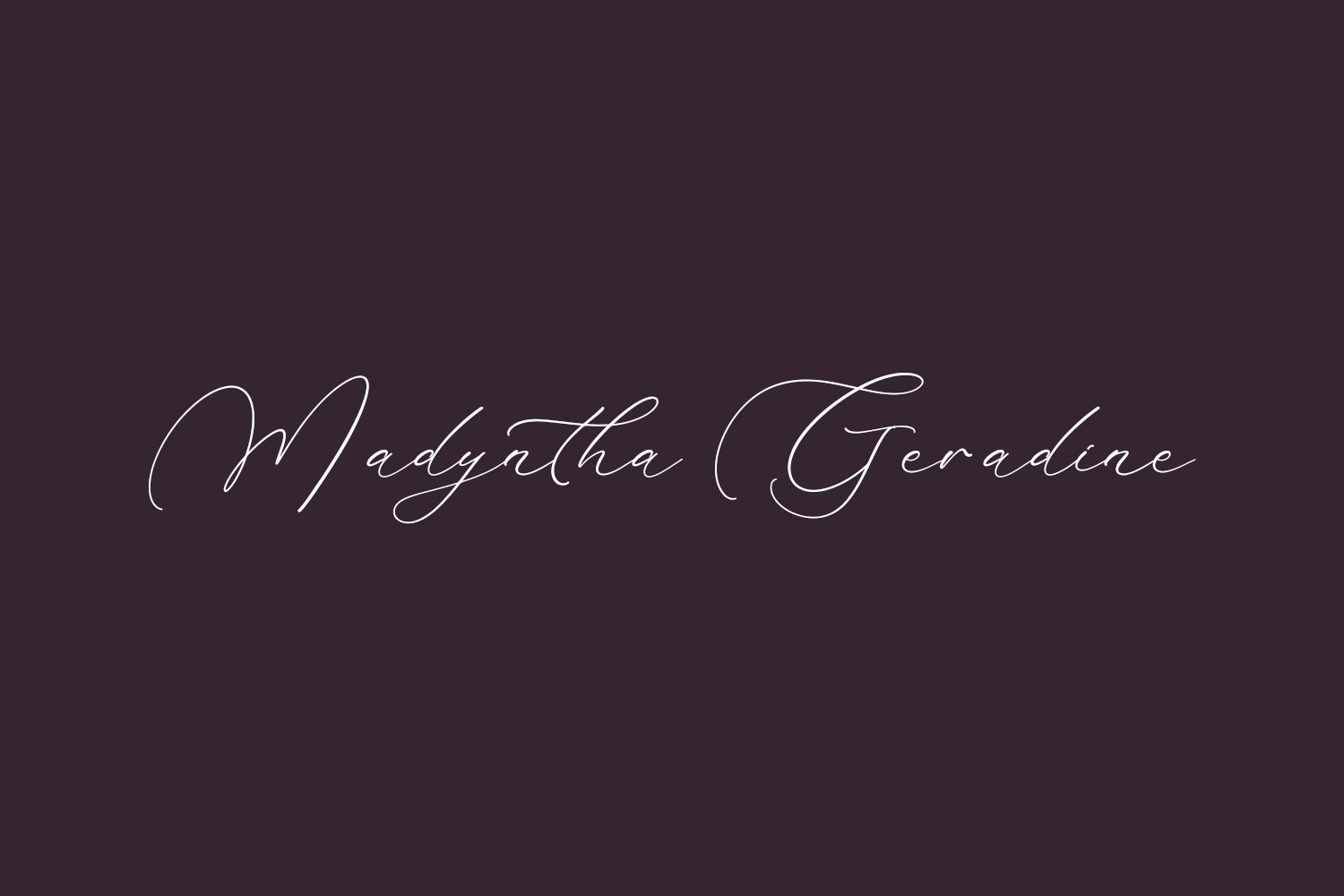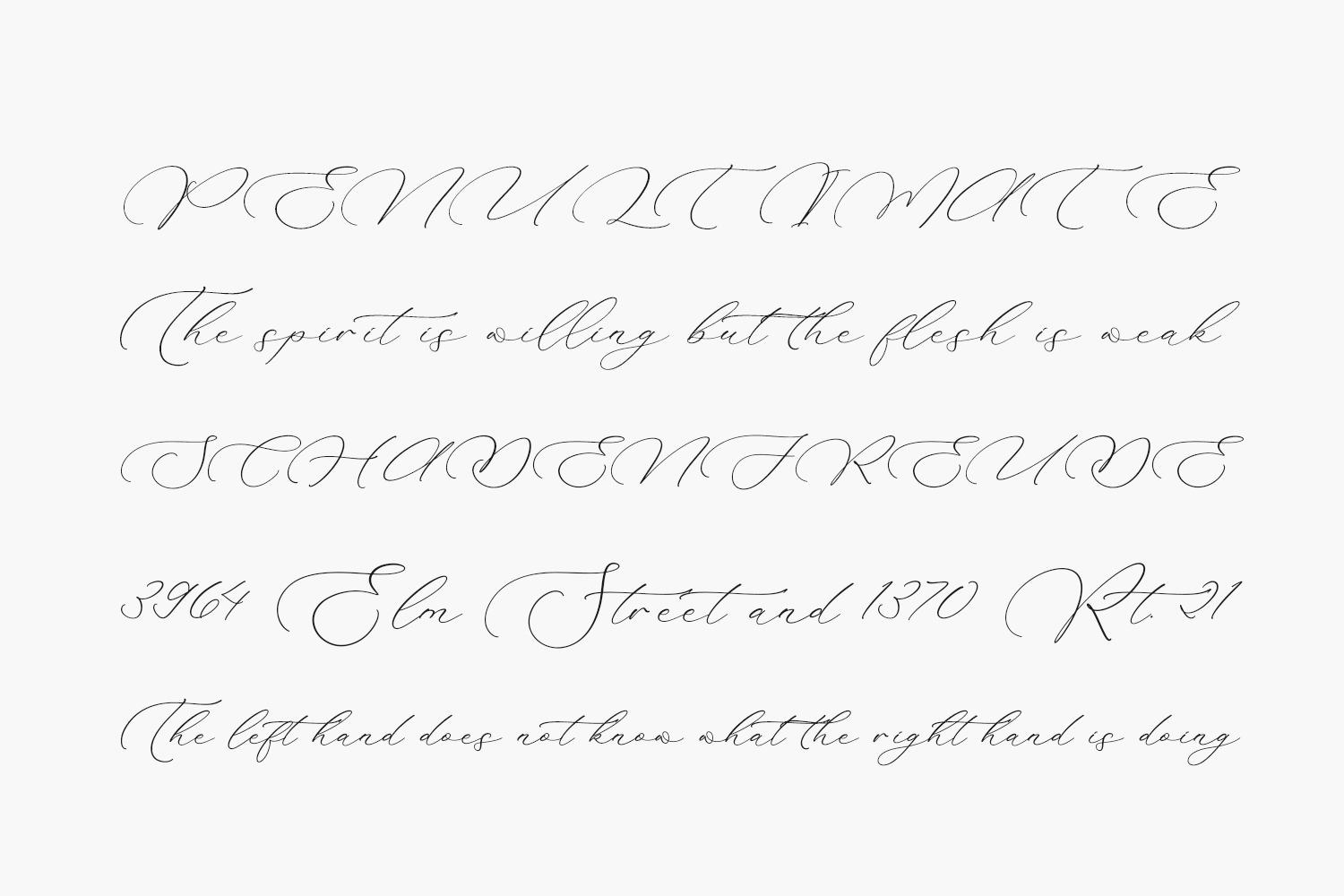
Madyntha Geradine – Free Chic Calligraphy Script Font
Why Choose Madyntha Geradine?
- Luxury Handcrafted Style: Refined cursive with swashes for a signature elegance.
- OpenType Features: Includes ligatures, alternates, and stylistic sets for design flexibility.
Where to Use Madyntha Geradine?
- Wedding & Event Invitations: Adds a touch of romance and elegance to stationery.
- Luxury Branding & Logos: Ideal for boutique, fashion, or beauty brands.
- Book/Movie Titles: Elevates titles with sophistication and personality.
- Greeting Cards & Quotes: Perfect for heartfelt messages and stationery products.
- Editorial & Fashion Layouts: Complements magazine spreads, headers, and ads.
Design Tips with Madyntha Geradine
Use at medium-large sizes (18–48 pt) to highlight elegant swashes. Pair it with a clean sans-serif like Headwar or Florensa for balance. Apply soft pastel or neutral palettes—blush, beige, grey—for a luxurious feel. For wedding designs, consider using crushed texture backgrounds to enhance the hand-lettered aesthetic.
- Glyphs: Uppercase A–Z, lowercase a–z, numerals, punctuation, alternates, ligatures (~255 glyphs).